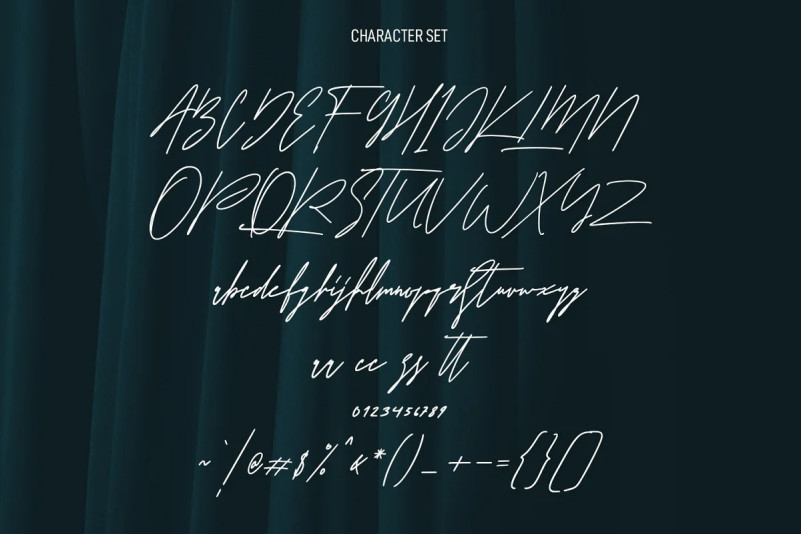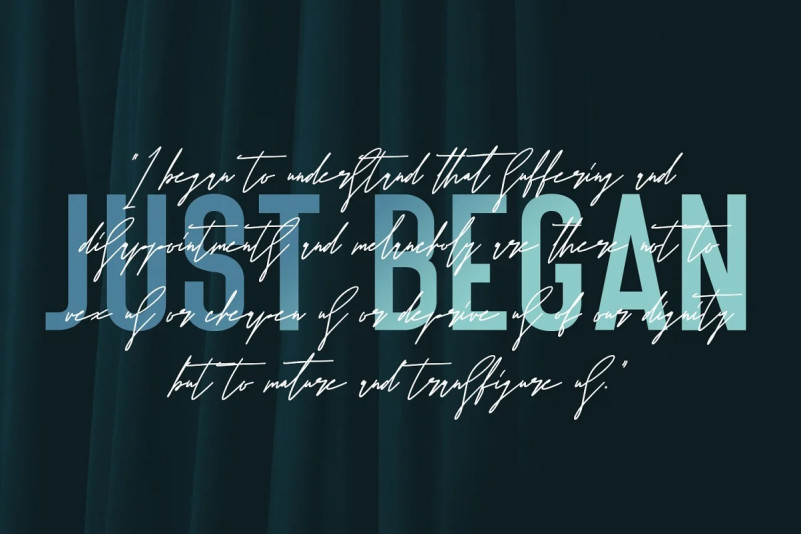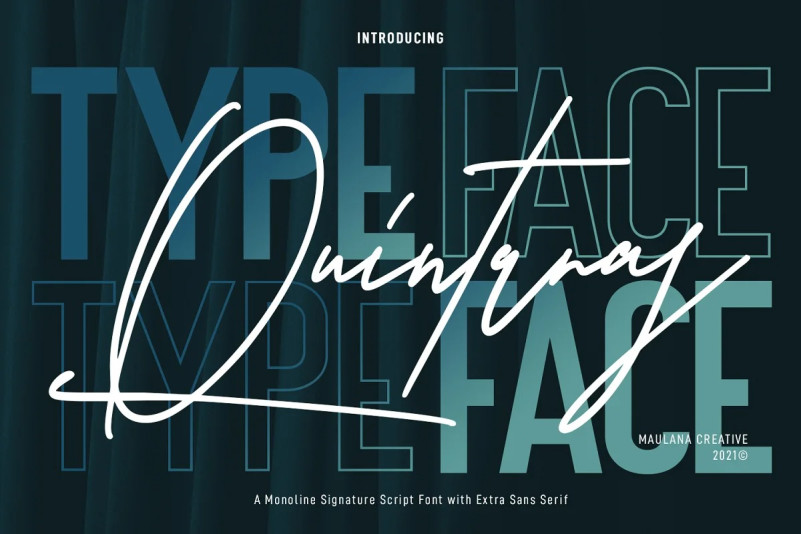
Quintaras Font
Quintaras Font Duo is a complete script and sans font duo. With expressive signature mono-line stroke and condensed sans solid and outline stroke, fun character with some of ligatures. To give you an extra creative work. Quintaras font support multilingual more than 100+ language. This font is good for logo design, Social media, Movie Titles, Books Titles, a short text even a long text letter. Make a stunning work with Quintaras font.